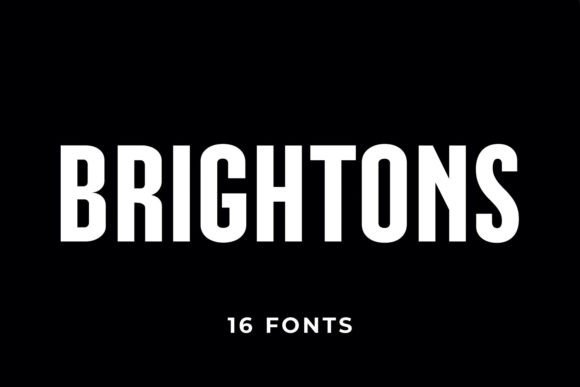
Brightons Font: Elevate Your Design with Modern Sophistication
Brightons, a modern, professional sans-serif font, exudes confidence and clarity in every curve and line. Its sleek, geometric design is tailored for contemporary designs, offering excellent readability across various media. With a touch of sophistication, Brightons elevates any project, making it perfect for branding, editorial, and digital applications.
The Birth of Brightons Font
Brightons font was crafted with the goal of creating a typeface that embodies the essence of modern design. Its development involved a meticulous process of refinement to ensure that every aspect of the font, from its letterforms to its spacing, meets the highest standards of typographic excellence. The result is a font that is not only aesthetically pleasing but also highly functional.
The design of Brightons is characterized by its clean lines, geometric shapes, and a balanced x-height that contributes to its exceptional readability. These features make it an ideal choice for a wide range of applications, from digital screens to print materials.
Key Features of Brightons Font
- Modern Sans-Serif Design: Brightons boasts a contemporary sans-serif design that is both sleek and sophisticated. Its geometric shapes and clean lines give it a fresh and modern look that is perfect for designs that demand a professional edge.
- Excellent Readability: One of the standout features of Brightons is its excellent readability. The font’s design takes into account the nuances of digital and print media, ensuring that text remains clear and legible even at small sizes.
- Sophisticated Aesthetic: Brightons adds a touch of sophistication to any project. Its balanced and harmonious design makes it suitable for high-end branding, editorial content, and digital platforms.
- Versatility: The font’s versatility is another one of its key strengths. Brightons can be used across a variety of mediums, including logos, headings, body text, and more, making it a valuable addition to any designer’s toolkit.
Applications of Brightons Font
Brightons font is incredibly versatile and can be applied in numerous contexts. Its modern and professional appearance makes it suitable for:
- Branding: Create a lasting impression with Brightons. Its sleek design and sophisticated feel make it perfect for logos, wordmarks, and brand guidelines.
- Editorial Design: Elevate your editorial content with Brightons. Its readability and aesthetic appeal make it ideal for magazines, newspapers, and online publications.
- Digital Applications: Brightons performs exceptionally well in digital environments. Use it for website design, mobile apps, and digital marketing materials to give your content a professional and modern look.
- Print Materials: From brochures and flyers to business cards and posters, Brightons ensures that your print materials stand out with its clean and contemporary design.
Why Choose Brightons Font?
In a world where typography plays a crucial role in design, choosing the right font can make all the difference. Here are a few reasons why Brightons stands out:
- Unique Design: Brightons offers a unique design that sets it apart from other sans-serif fonts. Its geometric precision and balanced proportions give it a distinctive look that can enhance any design.
- High Legibility: The font’s high legibility ensures that your message is communicated effectively, whether it’s in a digital or print format.
- Professional Appearance: Brightons exudes professionalism, making it suitable for designs that require a polished and sophisticated look.
- Easy to Use: Brightons is designed to be user-friendly. It comes in various weights and styles, allowing you to choose the perfect variation for your project.
How to Use Brightons Font Effectively
To get the most out of Brightons, consider the following tips:
- Pair with Complementary Fonts: While Brightons is versatile on its own, it can also be paired with complementary fonts to create visual interest. Choose fonts that contrast well with Brightons to highlight different elements of your design.
- Adjust Weight and Style: Brightons comes in various weights and styles. Experiment with different variations to find the one that best suits your design needs.
- Consider Context: Think about the context in which your design will be used. Choose the appropriate weight and size of Brightons to ensure optimal readability and impact.
Brightons font is a modern, professional sans-serif typeface that brings a touch of sophistication and clarity to any design. Its sleek, geometric design and excellent readability make it perfect for a wide range of applications, from branding and editorial design to digital and print materials. By incorporating Brightons into your typography arsenal, you can elevate your designs and create a lasting impression on your audience.
- What makes Brightons unique?
- Brightons stands out due to its unique geometric design, balanced proportions, and high legibility. Its distinctive look can enhance any design and give it a professional edge.